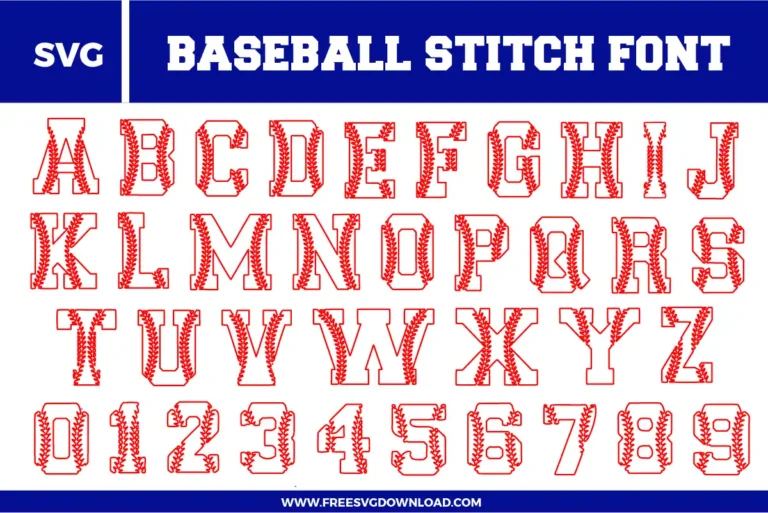
Baseball Stitch Font Free SVG File
A sporty and athletic Baseball Stitch Font free svg files set. The design features classic collegiate-style block letters and numbers 0-9 with detailed red baseball stitching running through the center of each character. This SVG alphabet bundle is designed with clean red outlines and realistic lacing, making it perfect for team sports apparel and personalized fan gear.
• Baseball Stitch Font SVG: Full uppercase alphabet and number set in a varsity block style, outlined in red with baseball seam stitching details running through the interior of each character.